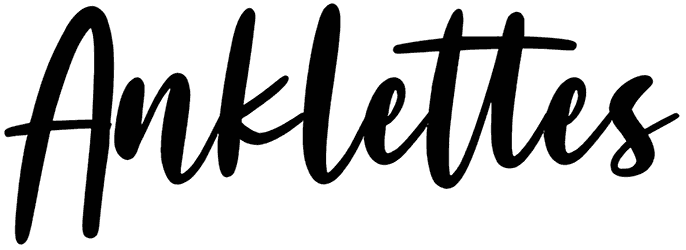
Anklettes Font
What is your opinion about utilizing a script font such as Anklettes that carries a soft texture and sophisticated flow? If you believe a handwritten font similar to this one is suitable for your posters, menus, flyers, product packaging, and business cards, we advise you to immediately pick up this artwork.
While it leads to a sense of cool, personalization, dynamic, or drama, not supporting numbers will not be a serious problem.